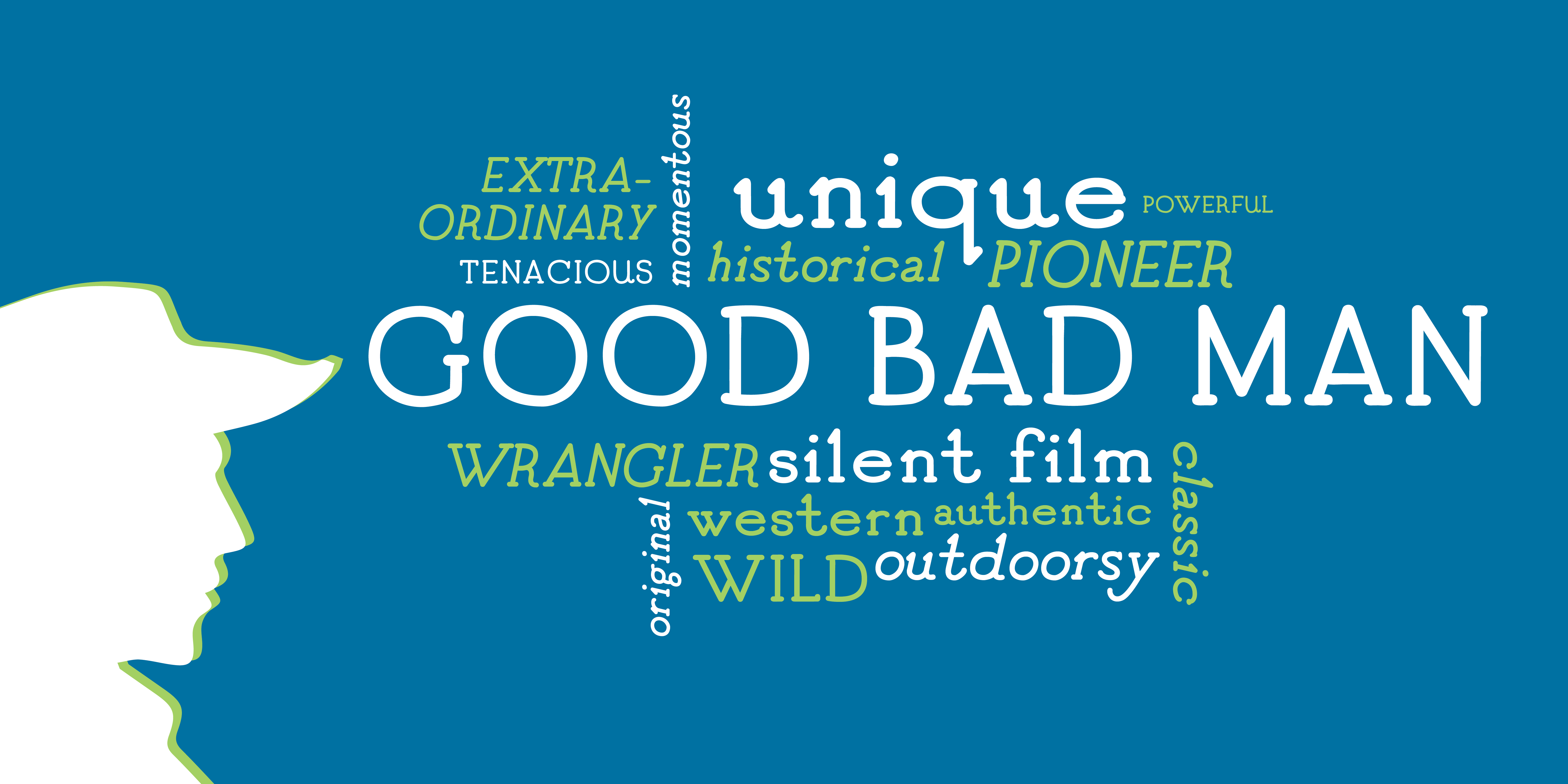
Good Bad Man Font is perfect for western movie titles, cowboy bar signage, vintage saloon posters, outlaw-themed games, wild west branding, rodeo advertisements, country music albums, and rugged masculine projects that require bold frontier typography with rebellious character and authentic western atmosphere.
This Good Bad Man Font is exciting because it captures the gritty essence of the American frontier with bold, weathered letterforms that convey the duality of honor and rebellion found in classic western antiheroes, featuring distinctive character details that evoke dusty saloons and lawless territories.
The Good Bad Man Font family includes bold weights with authentic western styling, complete character sets with uppercase and lowercase letters, frontier-style numerals, rugged punctuation, and decorative elements that provide comprehensive typography solutions for western-themed design projects requiring genuine outlaw aesthetics and frontier appeal.
Perfect for creating authentic western communications and rebellious brand identities, Good Bad Man Font Free Download delivers the frontier typography that transforms modern text into powerful statements of independence and rugged masculinity. This distinctive typeface embodies the spirit of the American West, making it essential for projects celebrating cowboy culture, outlaw legends, western heritage, and any design requiring bold frontier character with authentic wild west atmosphere.